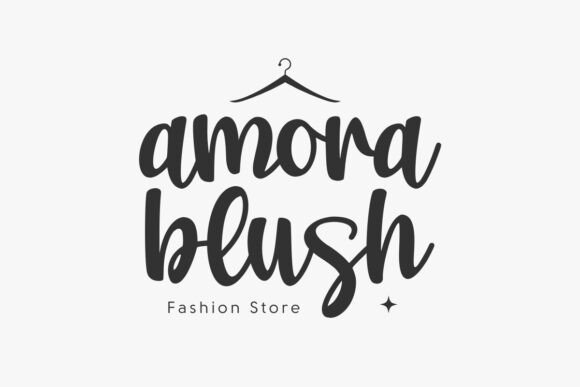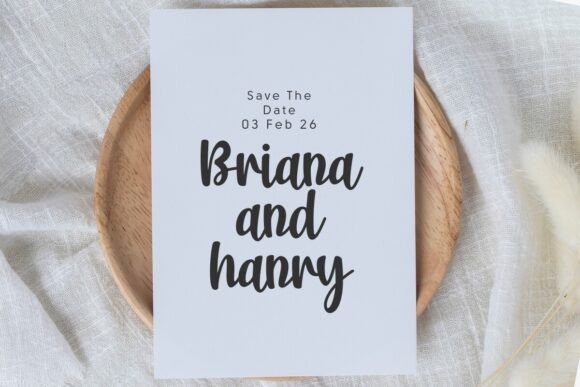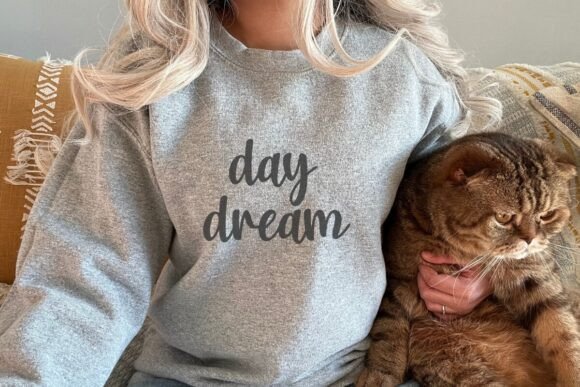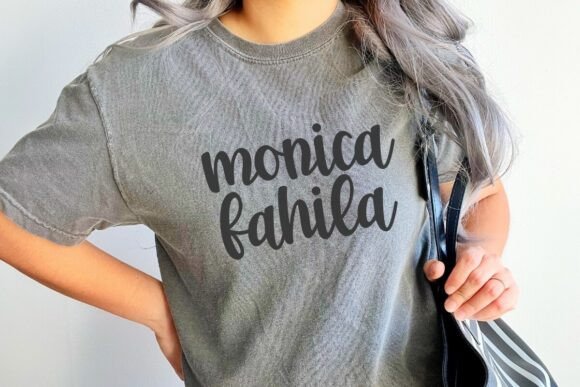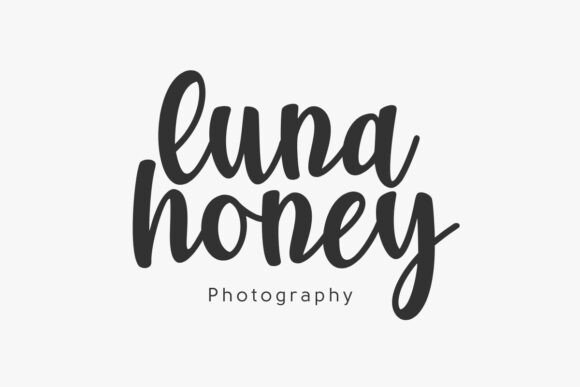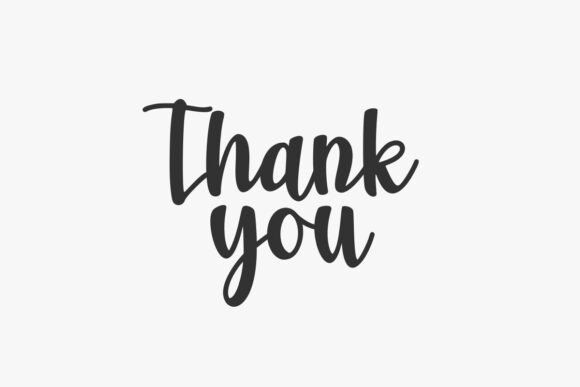
Aurora Font: The Cozy Charm of Winter in Your Designs
Are you looking for a font that can add a touch of warmth and coziness to your designs? Look no further than Aurora Font, a playful, handwritten font that captures the essence of winter. With its unique design, Aurora Font is perfect for creating captivating wedding designs, distinctive branding, inspirational quotes, and inviting cards for any occasion.
The Perfect Font for Winter-Inspired Designs
Aurora Font is a one-of-a-kind font that is sure to make your designs stand out. Its playful, handwritten style is reminiscent of the magic and wonder of winter, making it perfect for creating designs that evoke a sense of coziness and warmth. Whether you’re designing wedding invitations, branding materials, or social media graphics, Aurora Font is the perfect choice.
Endless Design Possibilities with Aurora Font
Aurora Font is incredibly versatile, making it perfect for a wide range of design projects. Here are just a few ideas to get you started:
- Wedding Designs: Create beautiful wedding invitations, save-the-date cards, and wedding stationery with Aurora Font.
- Branding: Use Aurora Font to create distinctive branding materials, such as logos, business cards, and letterheads.
- Inspirational Quotes: Add a touch of warmth and coziness to your inspirational quotes with Aurora Font.
- Cards and Invitations: Create inviting cards for any occasion, from birthday bashes to exclusive events.
- T-Shirts and Apparel: Add a personal touch to your T-shirts and apparel with Aurora Font.
- Greetings Cards: Create delightful greetings cards for holidays, birthdays, and other special occasions.
What Sets Aurora Font Apart
So, what makes Aurora Font so special? Here are just a few features that set it apart:
- Unique Design: Aurora Font has a one-of-a-kind design that is sure to make your designs stand out.
- Playful Style: Aurora Font has a playful, handwritten style that adds a touch of whimsy to your designs.
- Cozy Charm: Aurora Font captures the essence of winter, making it perfect for creating designs that evoke a sense of coziness and warmth.
- Versatility: Aurora Font is incredibly versatile, making it perfect for a wide range of design projects.
Tips for Using Aurora Font in Your Designs
Here are a few tips for using Aurora Font in your designs:
- Pair with Other Fonts: Pair Aurora Font with other fonts to create a unique and eye-catching design.
- Use in Combination with Images: Use Aurora Font in combination with images to create a visually appealing design.
- Keep it Simple: Don’t be afraid to keep your design simple and let Aurora Font be the star of the show.
| Font Name | Aurora Font |
| Author | Sakti Avellin |